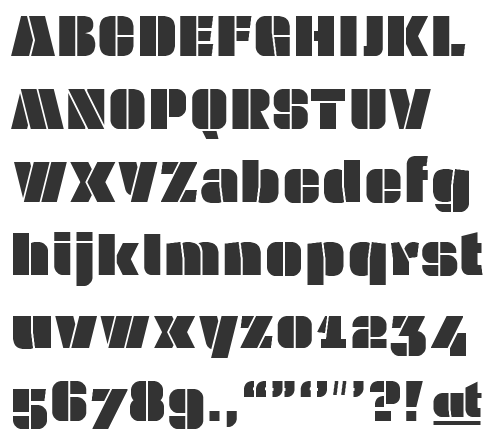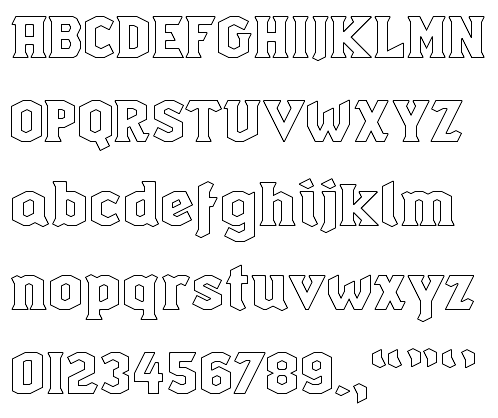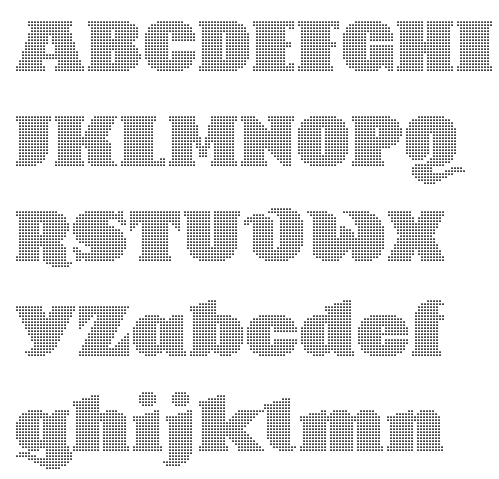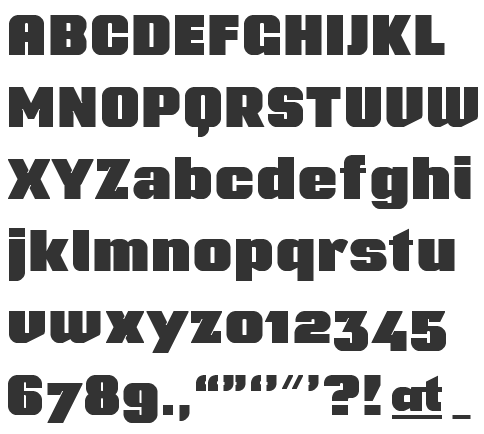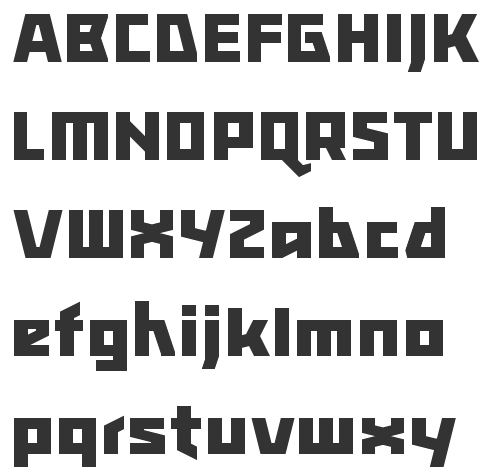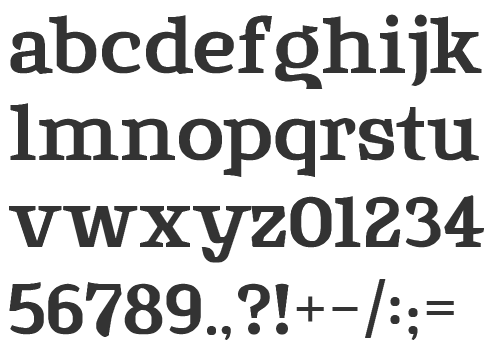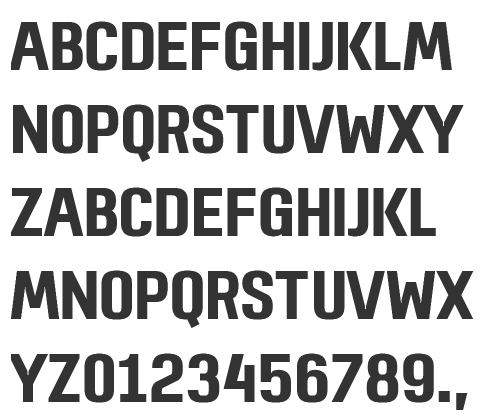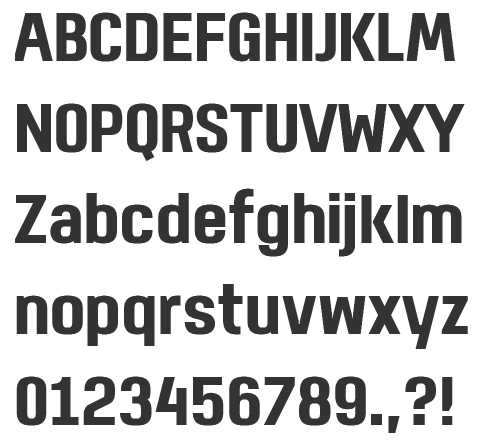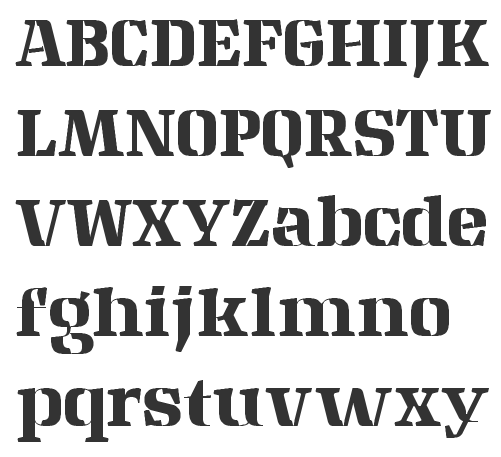
Blackletter fonts
There are several subpages on blackletter fonts. The present was covers Fraktur and blackletter in general. There are specialized pages on rotunda (aka Rundgotisch), textura, and bastarda (aka bâtarde or Schwabacher).
3MoDuDe
FontStructor who made these fonts in 2010: Reeph (wedge serif face), Theen (techno sans), Pewma (fat lettering as in the Puma logo), Clean (a gorgeous elliptical sans), Ambdx (Treefrog-style hand), Twynn Open (dot matrix face), rnd0m, Arcbk-Open (stencil), Arcbk-Regular, Djeom (athletic lettering), Skwar (squarish), Bletr, Serif, Stens (white on black stencil), Strux, Outln (Regular, Shady: art deco meets athletic lettering), Kyrst, Phatt (ultra fat), Psych (a "Western", Italian face), Bloks, Twynn, Zilch, Cyrth (runic), Reimu (blackletter), Kaway (stencil), Kewte (rounded monoline), and Kurvh (dot matrix).
Typefaces made in 2011: t4le (a tall piano key face inspired by In Her Memory by Softhunterdevil), Theek, Theek Open (blackboard bold face), Theen, Fluid, Sharp (angular). [Google] [More]  ⦿
A. Froescher
German designer of these blackletter typefaces: Block Fraktur (1914-1915, Berthold), Stuttgarter Fraktur (1915, Berthold). [Google] [More]  ⦿
A. Mendoza
Designer of the Paganini, Arenski, ChopinOpenFace, KhachaturianCaps, Capinini (blackletter) and Debussy families of fonts. [Google] [More]  ⦿
AARGH
Czech design studio. Behance link. Creator of the blackletter / metal band face Gothicecream (2012, Ten Dollar Fonts). [Google] [More]  ⦿
Aaron Carambula
A Kalamazoo, MI-based designer working on Fractured Six (2004), a blackletter bitmap face. Examples of typographic posters done at Friends of Type in 2010: Ah, Clef, poster. [Google] [More]  ⦿
[Aaron Beck]
Macabre 6USD shareware fonts. Also Beckett (blackletter, 1994), Cupertino, Graveyard, Headstone, Pirate Bones, StoneCutter, Tombstone and Warlock. All in Mac/PC T1 or TTF. Beckett. See also here. [Google] [More]  ⦿
Adam Albers
Portland, OR-based creator of Old English Style Font (2011). [Google] [More]  ⦿
Adolf Heimberg
Blackletter type designer: Urdeutsch (1924-1925, Genzsch&Heyse). See the digital revival by Petra Heidorn (2004). Schnelle spells his name as Heimberger. [Google] [More]  ⦿
Adriana Peralta
Paraguayan codesigner with Oz Montania of Totentanz (2009), a stencil blackletter font. [Google] [More]  ⦿
[Brian Kent]
The free fonts: Revert (2006), Gyneric (2006), Key Ridge (2006), Double Bogey (2005), Hairball (2005), Whatever (2005), Dyphusion (2005), Blackonimaut (2005, blackletter), Snailets (2005), Vigilance (2005), Wager (2005), Janken (2005), Dented (2005), Syracuse (2005), Symmetry (2005), Nucleus (2005), Underscore (2004), Gesture (2004), Rough Day (2004), Sarcastic (2004), Galapogos (2004), Reason (2004), Slender (2004), Gather (2004), Quadratic (2004), Saunder (2004), NostalgiaBRK (2004), Kinkaid (2004), Jeopardize (2004), Pincers (2004), Fascii (2004), Grapple (2004), WaywardBRK, WaywardShadowBRK (2004), Obstacle (2004), False Positive (2004), Goosebumps (2003), Jargon (2003), Bewilder (2003), 90Stars (2003, snowflake font), Chumbly (2003), Synthetic (2003), Jawbreaker (2003), Mobilize (2003), GreatHeightsBRK (2003), Graveyard (2003), Bend 2 Squares (2003), Redundant (2003), Homespun (2003), Galvanize (2003), Dastardly (2003), Vantage (2003), Quarantine (2003), Knot Maker (2003, with a program for weaving Celtic knots), Combustion (2003), Knot (2003), Enthuse (2003), Weaver (2003), Foreshadow (2003), Rambling (2003), Mincer (2003), Intersect (2003), Technique (2003), Nominal (2003), Unlearned (2003), Brass Knuckle (2003), Quarterly (2003), Zirconia (2003), Zephyrean (2003), Whippersnapper (2003), Ryuker (2003), Discordance (2003), Graze (2003), Gravitate (2003), Edit Undo (2003), Persuasion (2003), Encapsulate (2003), Nymonak (2003), 36DaysAgo (2003), Vertigo (2003), Lights Out (2003), Sequence (2003), Rehearsal (2003), Yearend (2002), SupraGeniusCurvesBRK (2002), SupraGeniusLinesBRK (2002), Faux Snow (2002, snowflakes), Mishmash (2002), Brigadoom (2002), Gyrose (2002), Dystorque (2002), Upraise (2002), QuacksalverBRK (2002), Ravenous Caterpillar (2002), Bumped (2002), Tonik (2002), Jupiter Crash (2002), Mysterons (2002), Sideways (2002), Scalelines (2002), Pneumatics (2002), Granular (2002), Volatile (2002), Aspartame (2002), Bleak Segments (stencil font), Genotype, United, Lynx (2002), Lyneous (2002), Alpha Beta (2002, pixel font), Licorice Strings (2002), Syndrome (2002, futuristic font), Your Complex (2002), Nanosecond (2002), Binary (2002), Dynamic (2002, techno), Qbicle (2002), Flipside (2002), Amplitude (2002), Pindown (2002), Kurvature (2002), Euphoric (2002), Bobcaygeon (2002), Zoetrope (2002), Overhead (2002), Zelda DX (2002, pixel), Telephasic (2002), Hearts (2002), Lamebrain (2002), Compliant Confuse (2002), Line Ding (2002), AE Systematic, Acknowledge, Mini Kaliber, Upheaval (2002), The Code of Life font (2001), Amalgamate (2002), Bandwidth (2001), ClassicTrash (2001), XmasLights (2001, alphadings), Setback (2001), Qlumpy (2001), Regenerate (2001), Konector (2001), registry (2001), Stagnation (2001), Elsewhere (2001), Claw (2001), Cleaved, 8-bitLimit (4 weights), 10.15SaturdayNight-BRK-, 3DLET(BRK), Automatica-BRK-, Bendable-BRK-, BitBlocksTTF-BRK-, Kickflip-BRK-, Withstand-BRK-, Hyde-BRK-, Jekyll-BRK-, Larkspur-BRK-, NotQuiteRight-BRK-, Quandary-BRK- (an LCD font), Thwart-BRK-, Weathered-BRK-, AEnigmaScrawl, Aftermath, Blox-, CandyStripe (1999), Circulate, Collective (4 weights), Conduit, DarkSide, DashDot, Dephunked-, EmbossingTape (3 fonts), Exaggerate, Frizzed, FullyCompletely, Grudge, Hassle, Hillock, Impossibilium, Inertia, InkTank, Lethargic, MoronicMisfire, Numskull, Opiated, Phorfeit, PixelKrud, Powderworks, Pseudo, QuantumFlat, QuantumFlatHollow, QuantumRound, QuantumRoundHollow, QuantumTaper, Ravaged-By-Years-, Raydiate, Relapse, Sorawin-Plain, Spastic-, Splatz-, Stranded-, Swirled-, TRAGIC-, VacantCapz, Wobbly, XeroxMalfunction(BRK), Zenith, ZeroVelocity, Zoidal, simplton, Waver, SaffronColdWars, 3DLET, Bri's-Scrawl, TRAGIC-, AcidReflux, Arthritis, Ataxia, AtaxiaOutline, BlockTilt, ChintzyCPU, ChintzyCPUShadow, Decrepit, Detonate, Draggle[overkerned], FatboySlimBLTC, Gasping, Hack&Slash, HeavyBevel, Jagged, Jasper, JasperSolid, Katalyst[active], Katalyst[inactive], LucidTypeA, LucidTypeB, LucidTypeBOutline, LucidTypeAOutline, Neural, NeuralOutline, ObloquySolid, PlasmaDrip, PlasmaDrip[Empty], Queasy, QueasyOutline, Rotund, RotundOutline, SkullCapz (dingbats), Tearful, Tetricide, Turmoil, Ubiquity, Underwhelmed, UnderwhelmedOutline, Vanished, Xhume, Yonder, Yoshi'sStory, ZurklezOutline, ZurklezSolid, Gaposis, Naughts, Ink Swipes, Irritate, Perfect Dark, Forcible, Loopy, GaposisOutline(BRK), GaposisSolid(BRK), Head-DingMaker(BRK), JoltOfCaffeine(BRK), KirbyNoKiraKizzu(BRK), Orbicular(BRK), Xtrusion(BRK).
[Stephen Miggas]
Aerotype is a foundry in Glendale, CA. It sells the creations of Stephen Miggas. Many typefaces were developed around 1998, and most were rejuvenated and updated in 2005. A list of Aerotype's faces typefaces:
• Pixel fonts: Airlock, AirlockWebDings, Fronteer One, Fronteer Two, Microtooth, Microtooth Web Dings, No Biggie One (+Bold), No Biggie Two (+Bold).
• Old typewriter fonts: Obsolete (+Bold, XBold, Light, XLight).
• Handwriting or informal scripts: Bountiful, BountifulBold, Khaki (2007, fun script), Khaki Alternate, Mission, Sanscripta (+Heavy), Siesta, Southbee, Stay True (2011, tattoo-inspired) Boundless, Chillin, Angeleno, Game Street, Jumpshot.
• Stencil faces: Expedition Stencil (+Heavy, +Thin).
• Blackletter: Kingshead (+Alternate, Alternate Gothic, Alternate Light, Gothic, Light), Ladybat (+Alternate, Alternate Light, Light), Ravenwood One (+Bold, Condensed), Ravenwood Two (+Bold, Condensed), Wilhelmschrift, Ravenwood, Octoberfest (blackletter), Gothicus (2006, after Rudolf Koch's Maximilian), Dractura, Dracena.
• Destructionist: Dogjaw (2009), Thunderhouse (2009), Sluicebox (2008), Americanus, Conquistador Medium, Derailer (2006), Fiesta, Indigo Medium, Rebound (+Bold, Light, Super, XLight), Coldsmith, Blackstock, Boilerplate, Geoduck, Ghost train.
Anthony Vallejos
Anthony Vallejos (Irvine, CA) created the tattoo / blackletter face Love=Evol (2011). [Google] [More]  ⦿